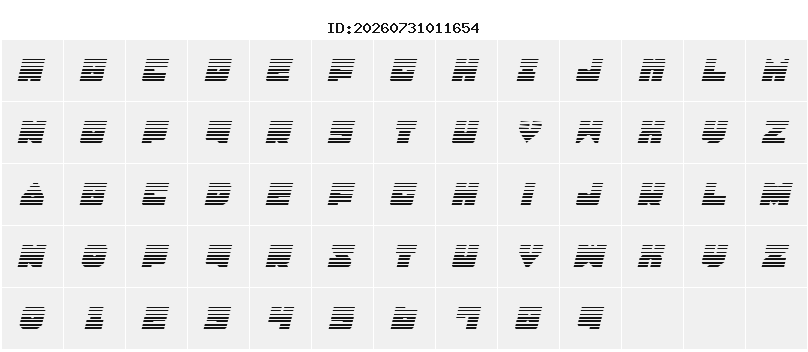
Lobo Tommy Gradient Italic Preview
• Font Name: Lobo Tommy Gradient Italic
• Full Font Name: Lobo Tommy Gradient Italic
• PostScript Name: LoboTommyGradientItalic
About Lobo Tommy Gradient Italic.ttf
Lobo Tommy Gradient Italic.ttf is a modern, elegant sans-serif font designed for ultimate readability and visual harmony. Perfect for branding, headlines, web design, and print materials.